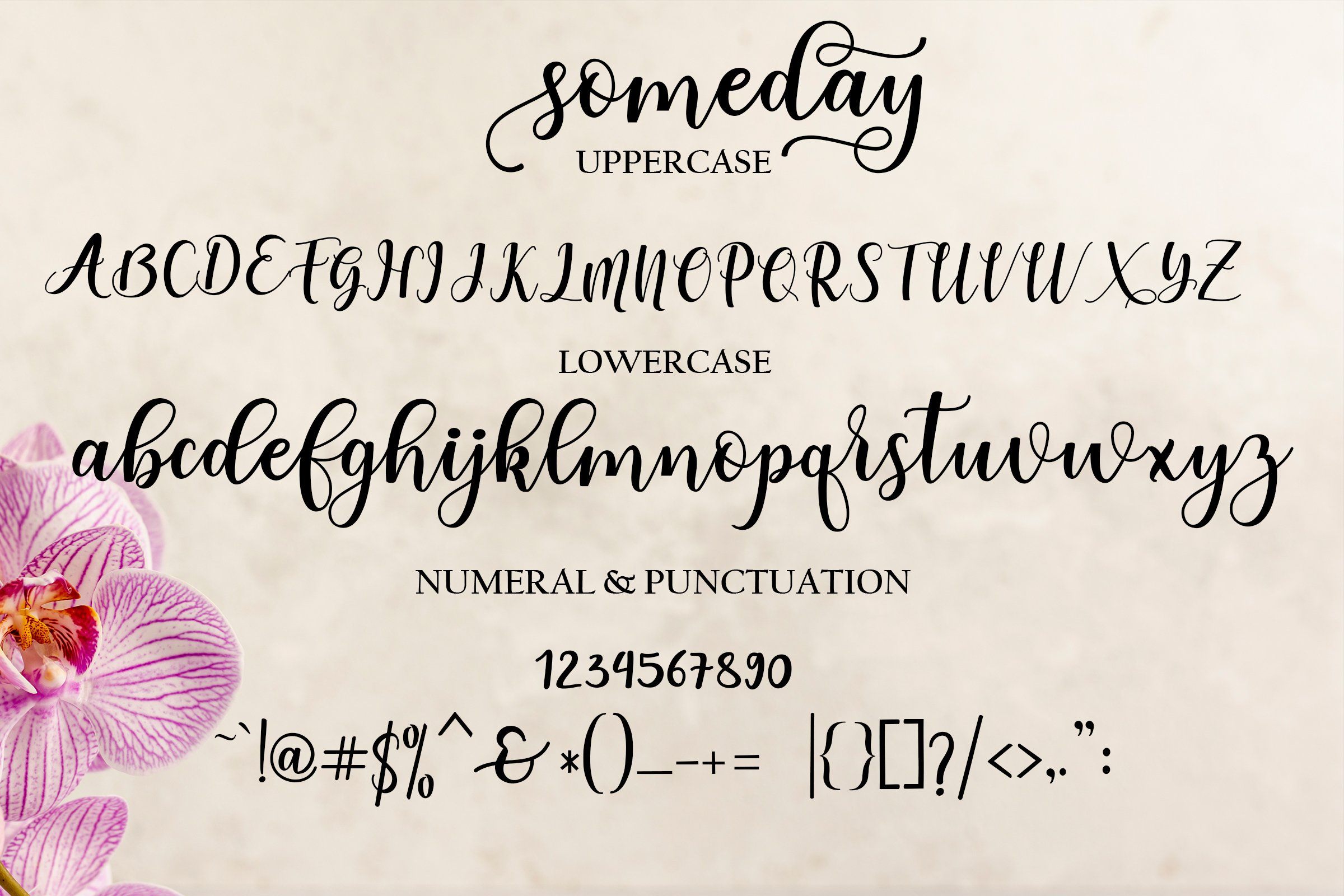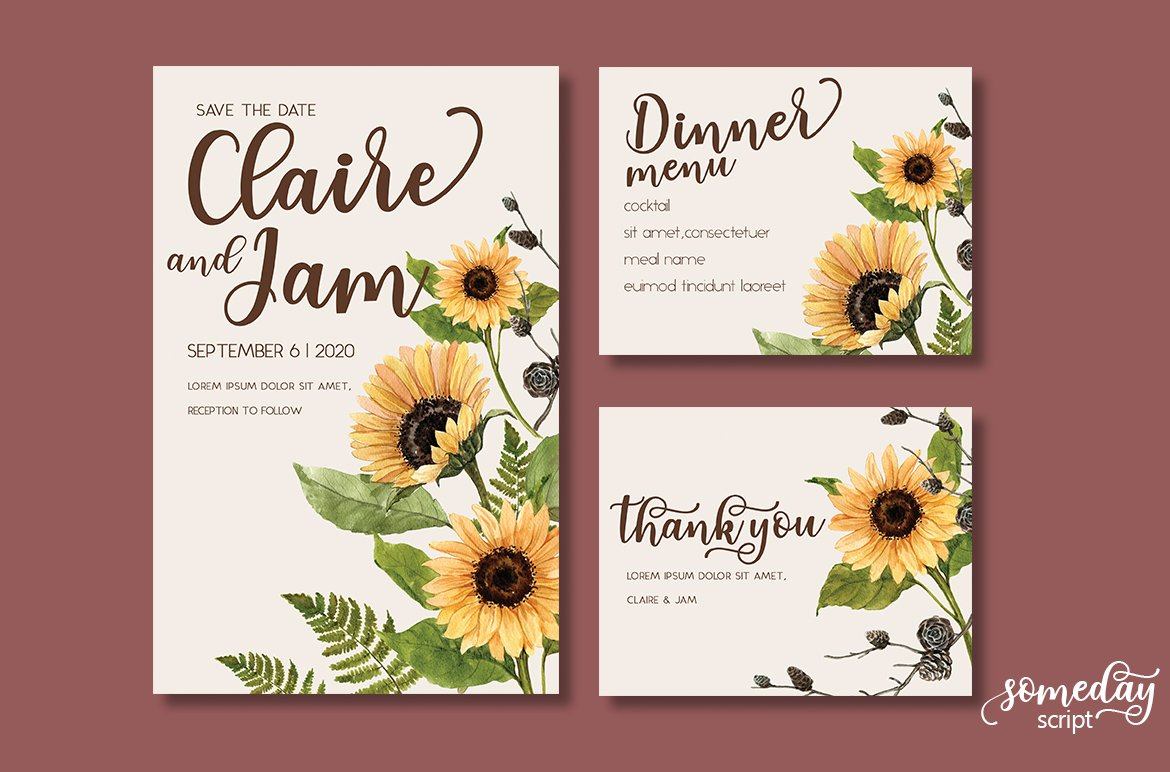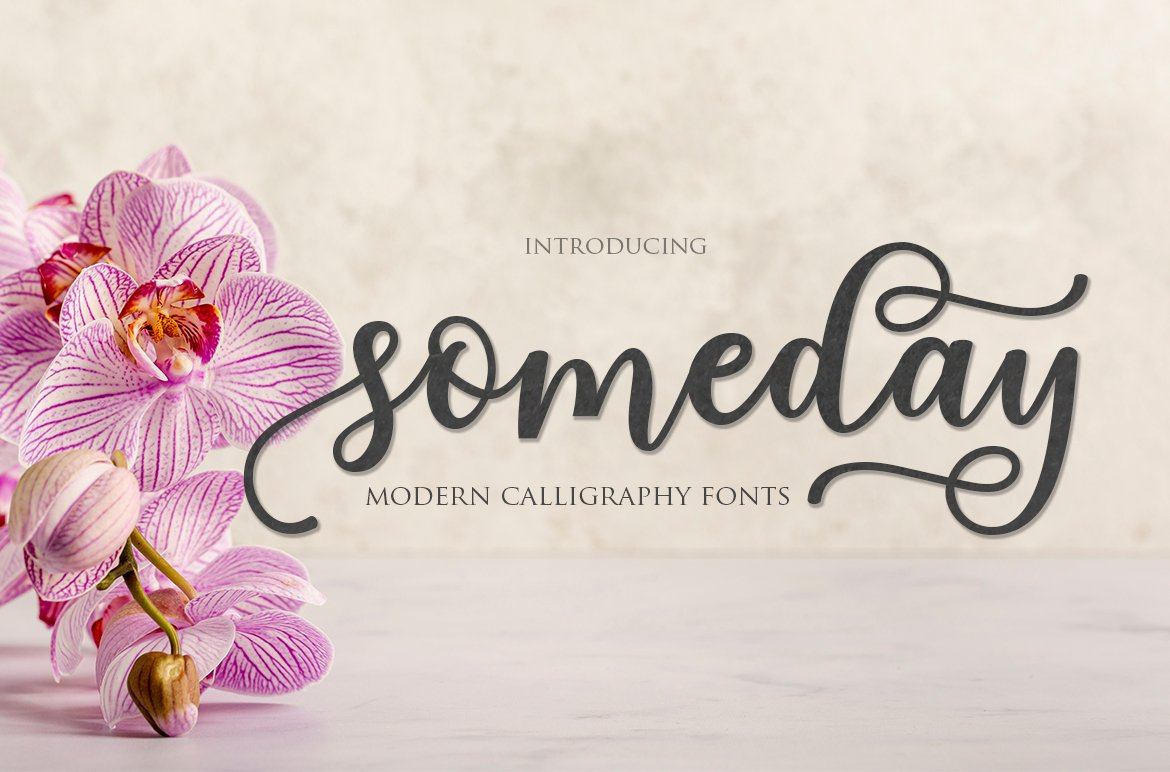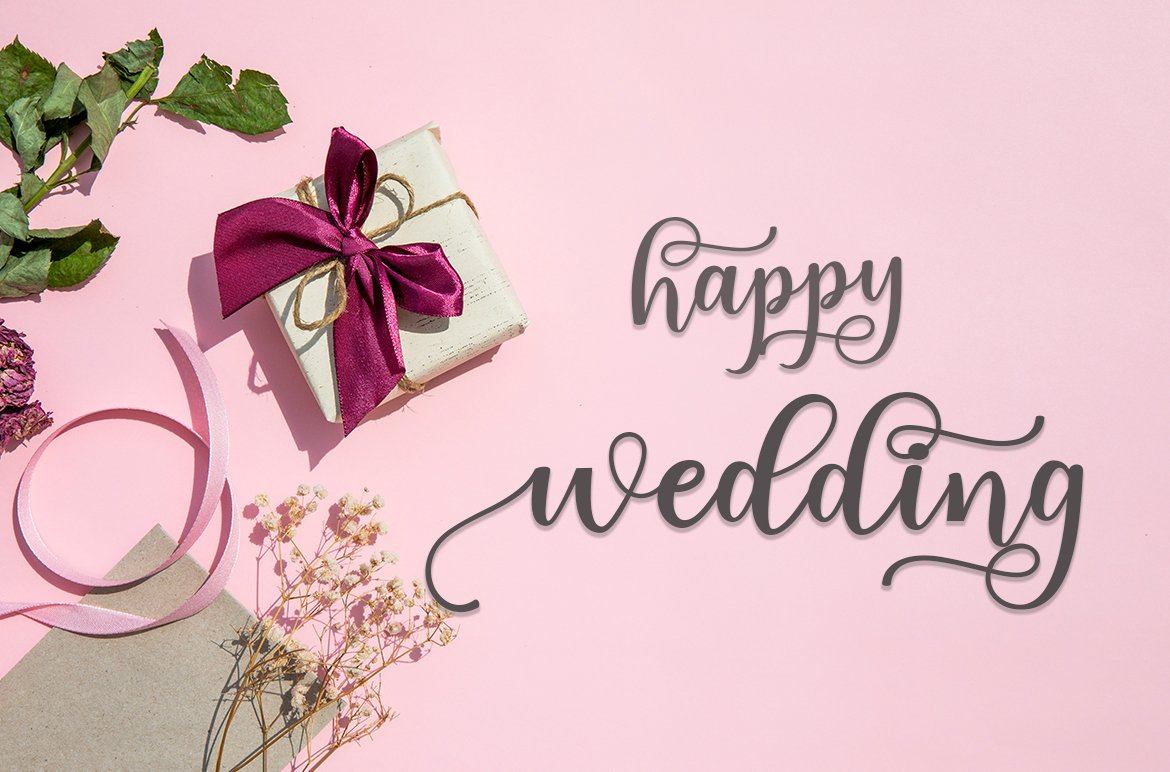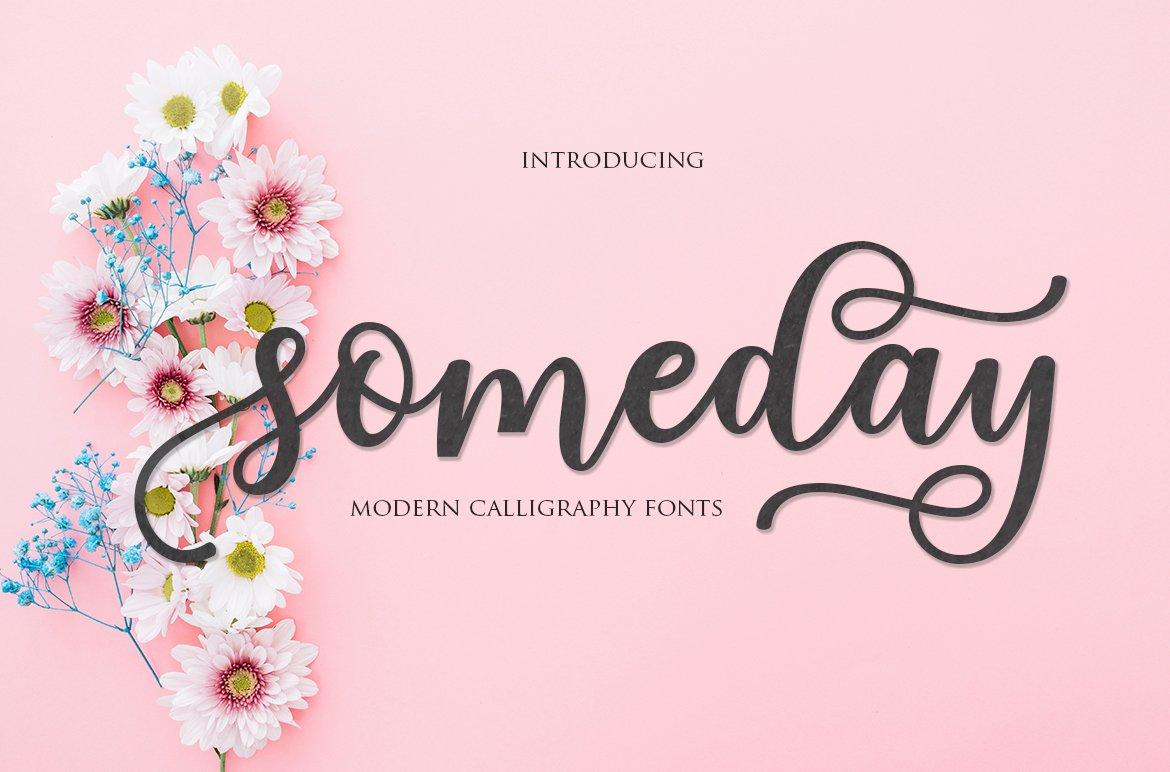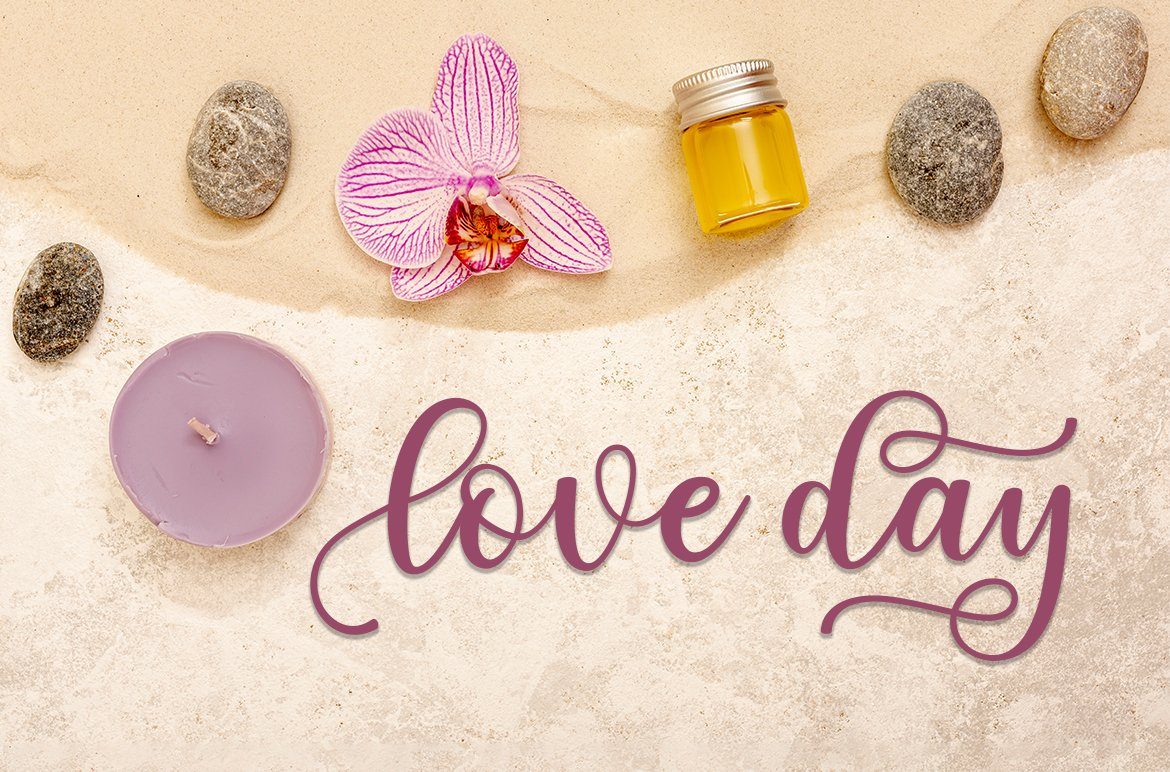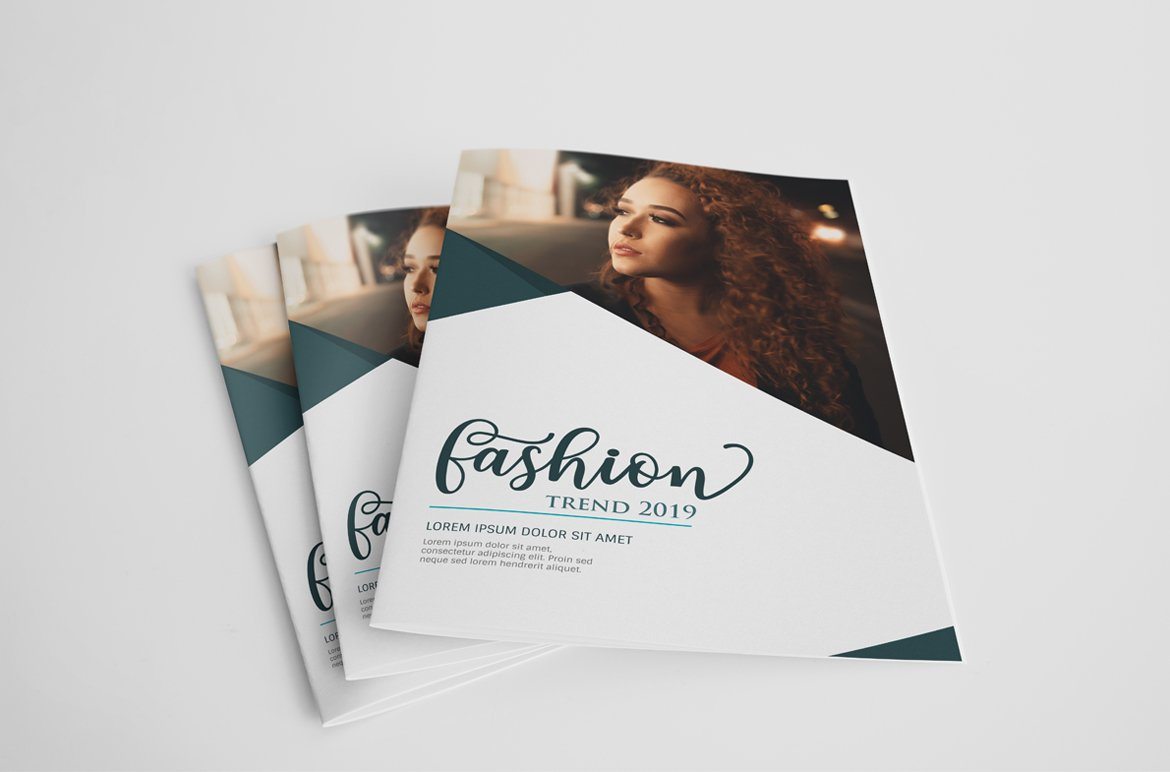
Someday Script
About Someday Script
someday Script is perfect for branding, wedding invitations, magazines, mugs, business cards, quotes, posters, and many more that you can use on your big project will be very beautiful. someday Script is equipped with the OpenType feature and has many glyphs. and of course having a lot of glyphs will be able to choose letters to your liking, lots of variations and choices for each letter, so you can customize your design choices and also support other languages. what you will get in this package: someday Script regular TTF someday Script regular OTF someday Script bold TTF someday Script bold OTF to use a variety of flying machines, you need a program that supports OpenType features such as Adobe Photoshop CS / Adobe Photoshop CC, Adobe Illustrator CS / Adobe Illustrator CC, Adobe Indesign and Corel Draw and many more programs that support OpenType. If you don’t have a program that supports OpenType, you can access all the alternate glyphs using Font Book (Mac) or Character Map (Windows) if you have any question, don’t hesitate to contact me by email. Thanks and happy designing 🙂 Thank You for purchase someday Script is perfect for branding, wedding invitations, magazines, mugs, business cards, quotes, posters, and many more that you can use on your big project will be very beautiful. someday Script is equipped with the OpenType feature and has many glyphs. and of course having a lot of glyphs will be able to choose letters to your liking, lots of variations and choices for each letter, so you can customize your design choices and also support other languages. what you will get in this package: someday Script regular TTF someday Script regular OTF someday Script bold TTF someday Script bold OTF to use a variety of flying machines, you need a program that supports OpenType features such as Adobe Photoshop CS / Adobe Photoshop CC, Adobe Illustrator CS / Adobe Illustrator CC, Adobe Indesign and Corel Draw and many more programs that support OpenType. If you don’t have a program that supports OpenType, you can access all the alternate glyphs using Font Book (Mac) or Character Map (Windows) if you have any question, don’t hesitate to contact me by email. Thanks and happy designing 🙂 Thank You for purchase